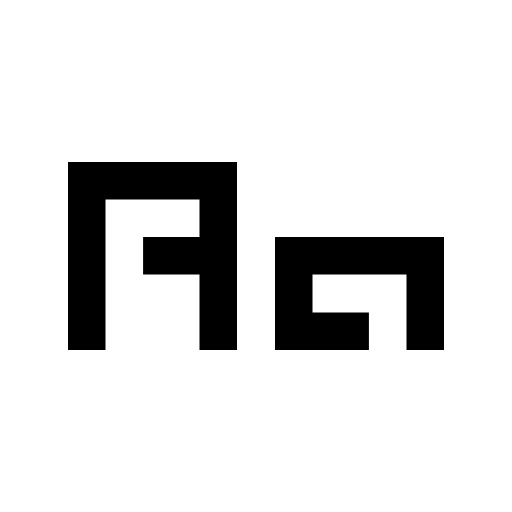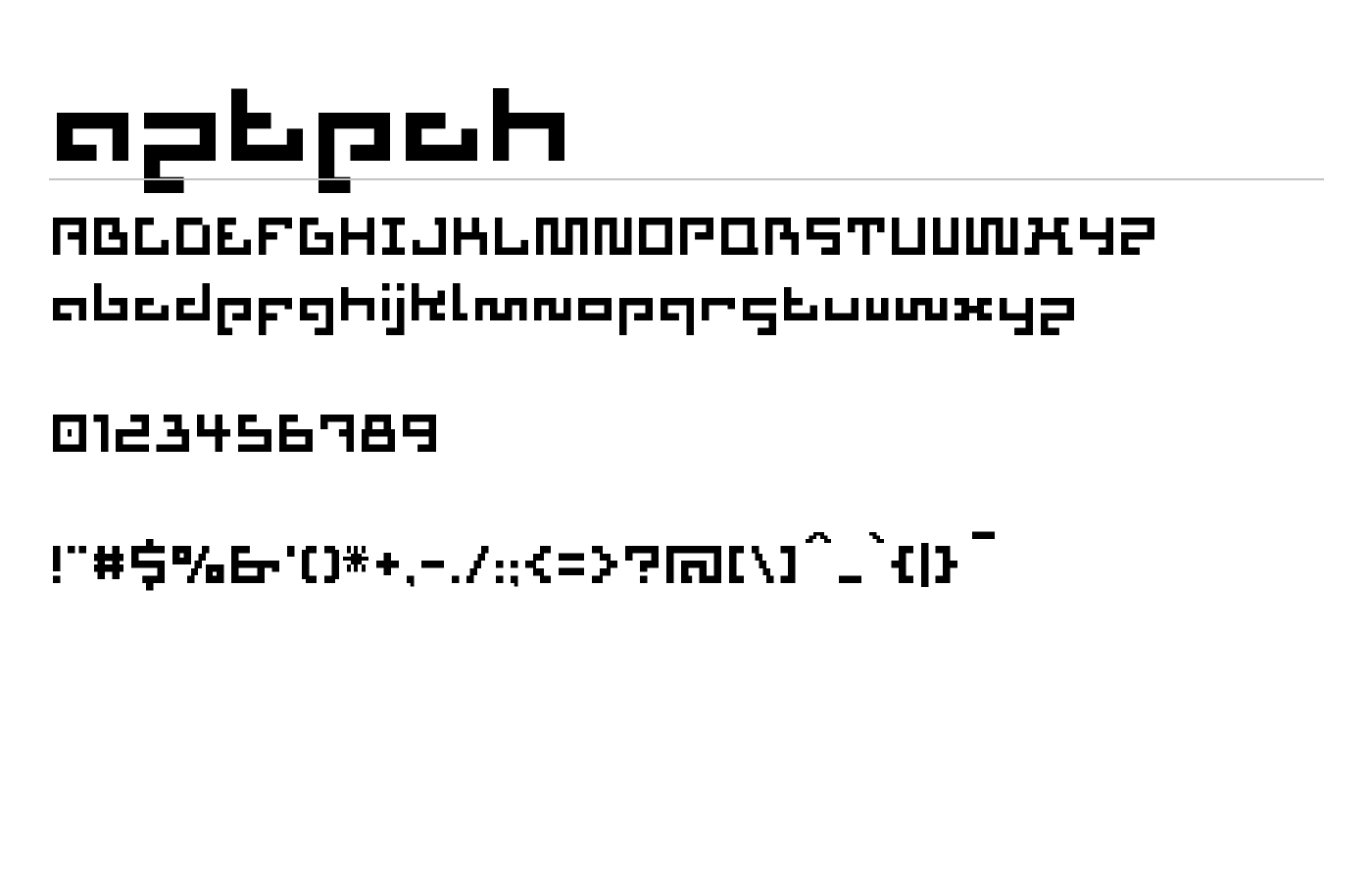
Aztech is a bold, geometric sans serif font with a distinct pixel-art style reminiscent of retro video games and digital displays. Its rigid, blocky letterforms and consistent stroke weight give it a technical and futuristic feel, making it perfect for tech branding, gaming projects, and digital-themed designs. This font works best in headlines and logos where its unique, eye-catching character can stand out.
aztech Font
About aztech Font
| Font family | aztech Font |
| Designer | Alejandro Cabrera Avila |